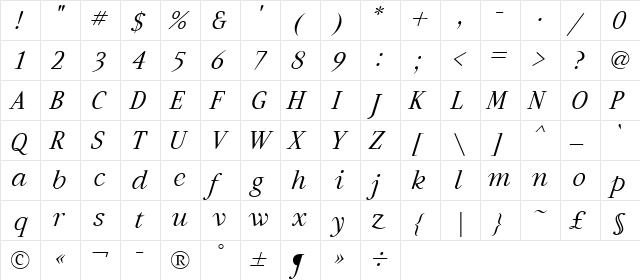
Artemius Light TT Regular Italic
Design Context for Artemius Light TT Typeface
Artemius Light TT is a composed and adaptable typeface that performs quietly and consistently across a wide range of design contexts. The slanted form adds forward momentum and visual energy. The delicate stroke weight brings airiness and refinement to layouts.
Pro Tip: Use Artemius Light TT for emphasis, pull quotes, and subheadings where its slanted energy can add rhythm to the layout.